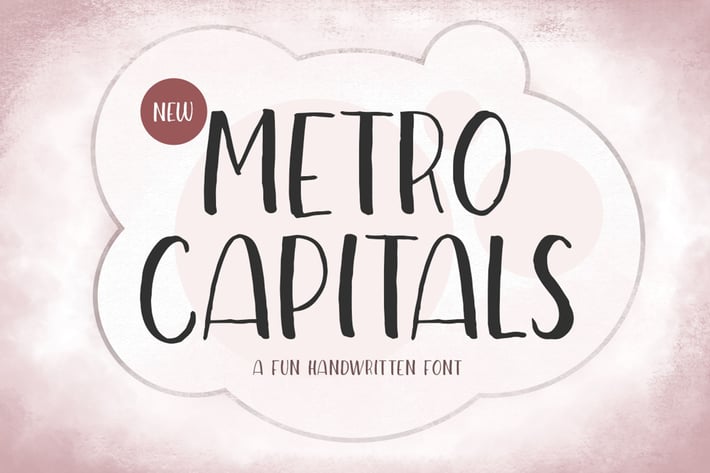
Metro Capitals - Handwritten Font
Introducing, Metro Capitals, a fun handwritten typeface. This font is perfectly made for branding, packaging, headline, logos, magazines, books, greeting / wedding cards, packaging, fashion, make up, stationery, novels, labels or any type of advertising purpose.
+ uppercase & lowercase
+ numbers and punctuation
+ multilingual
+ alternates